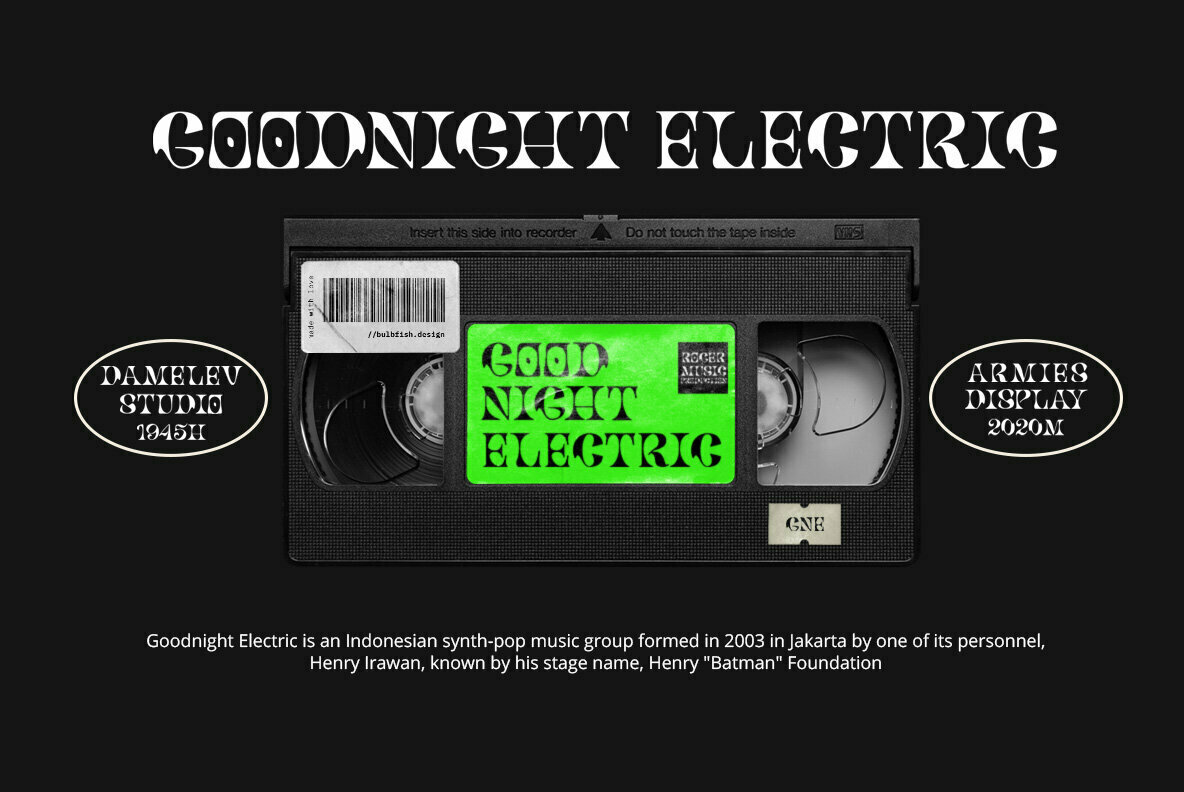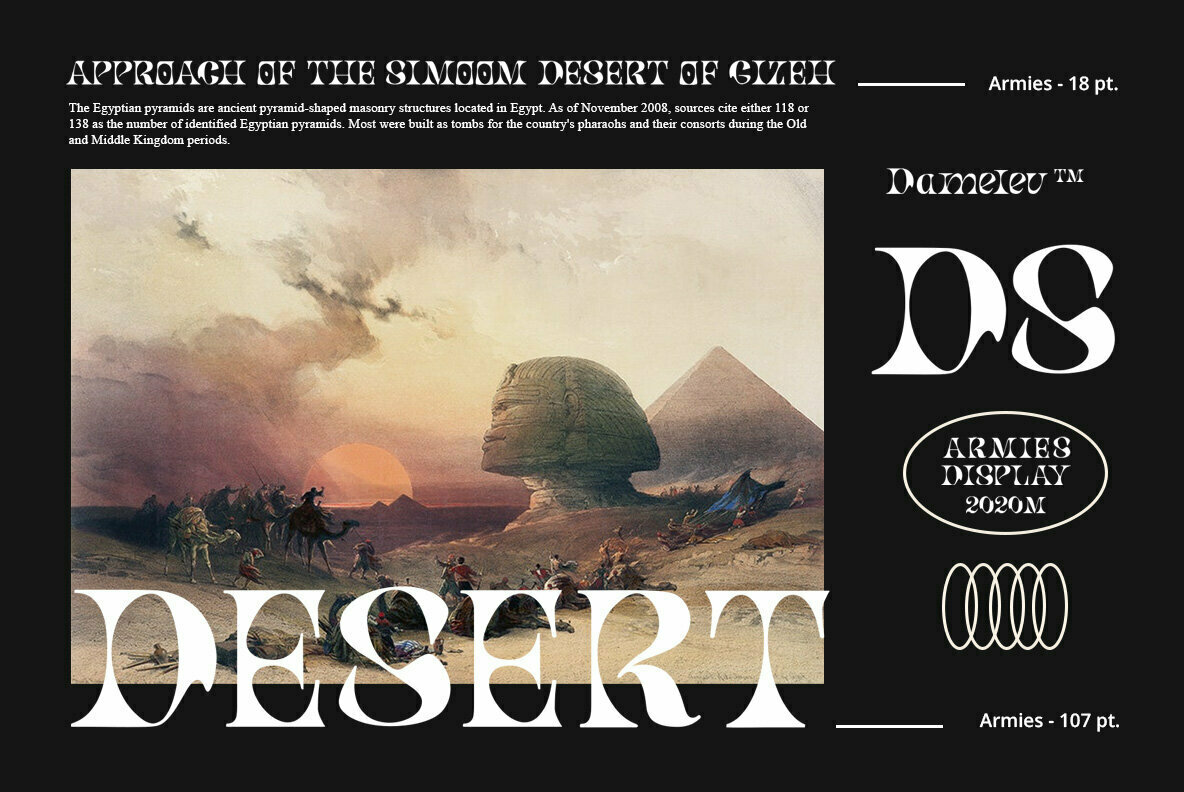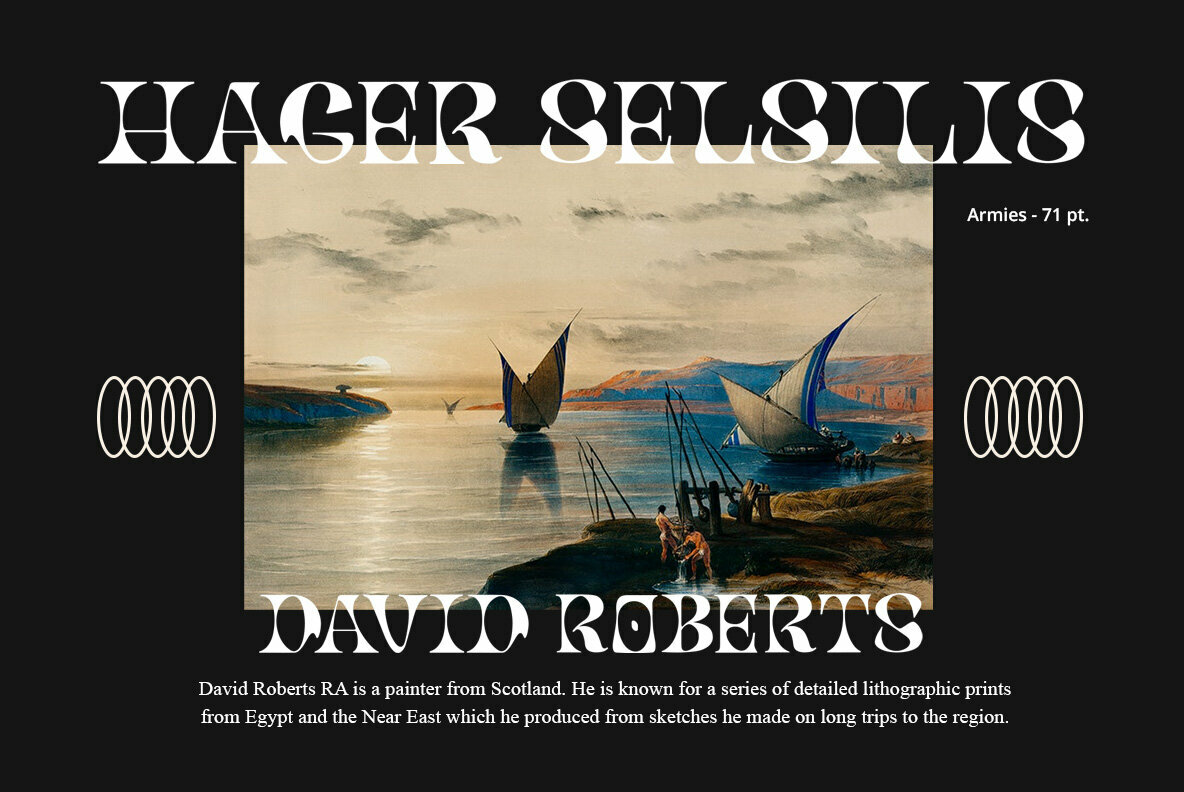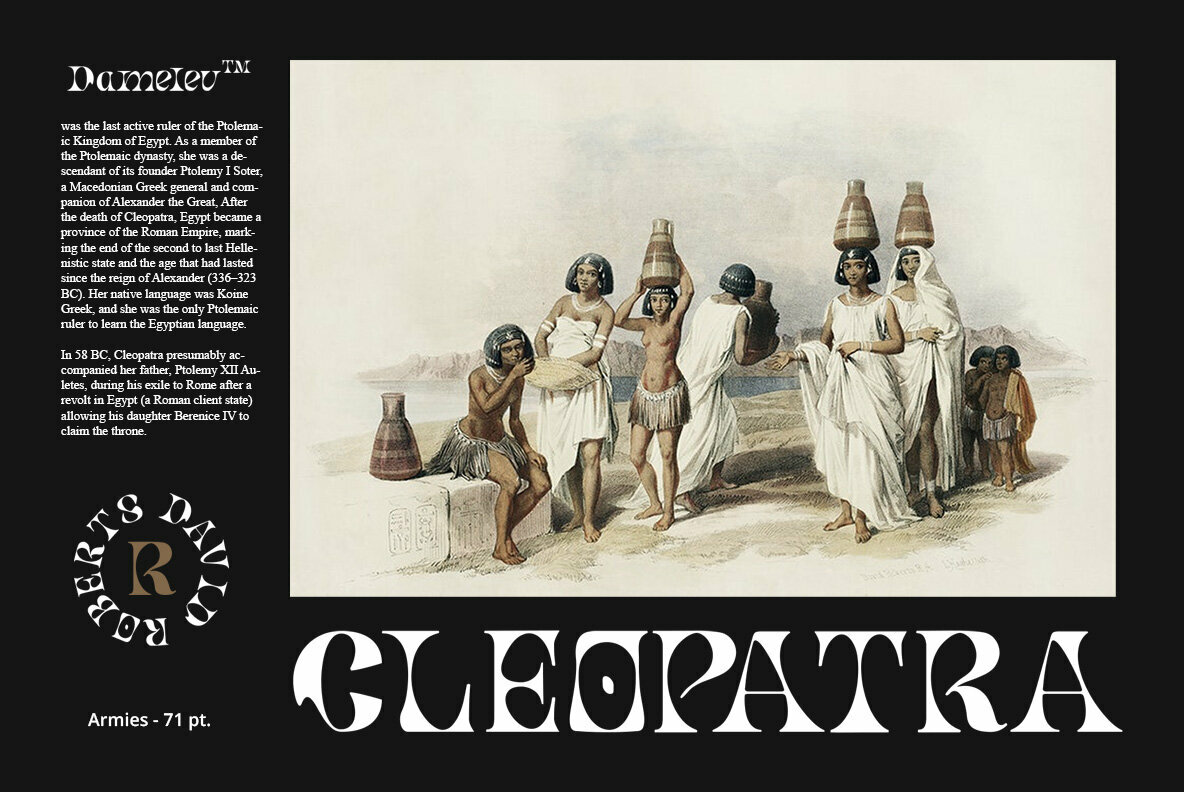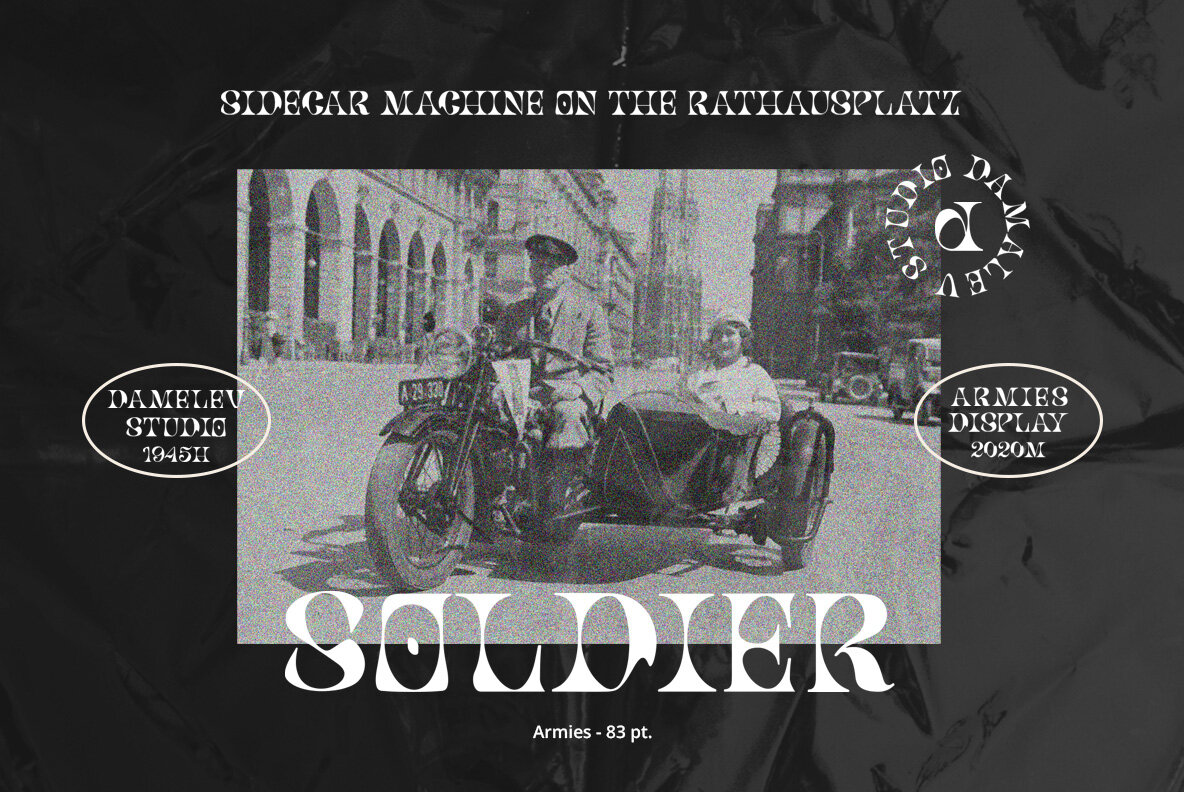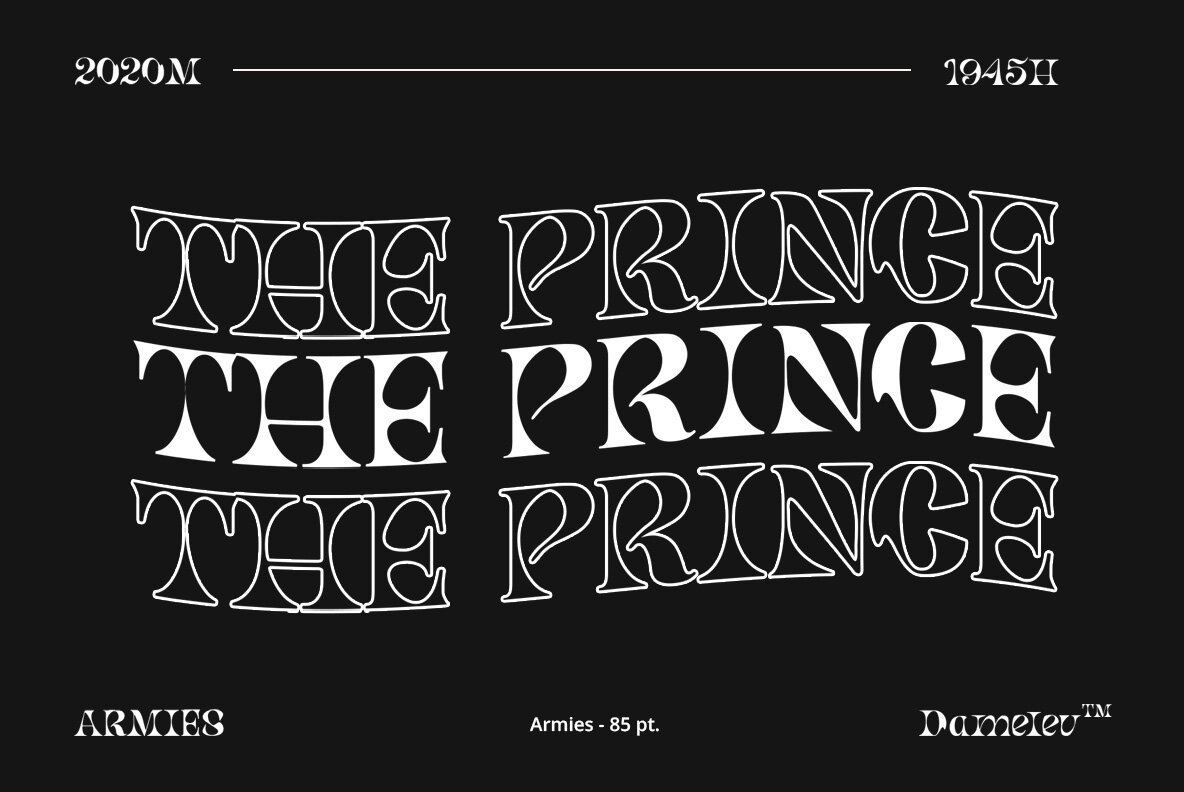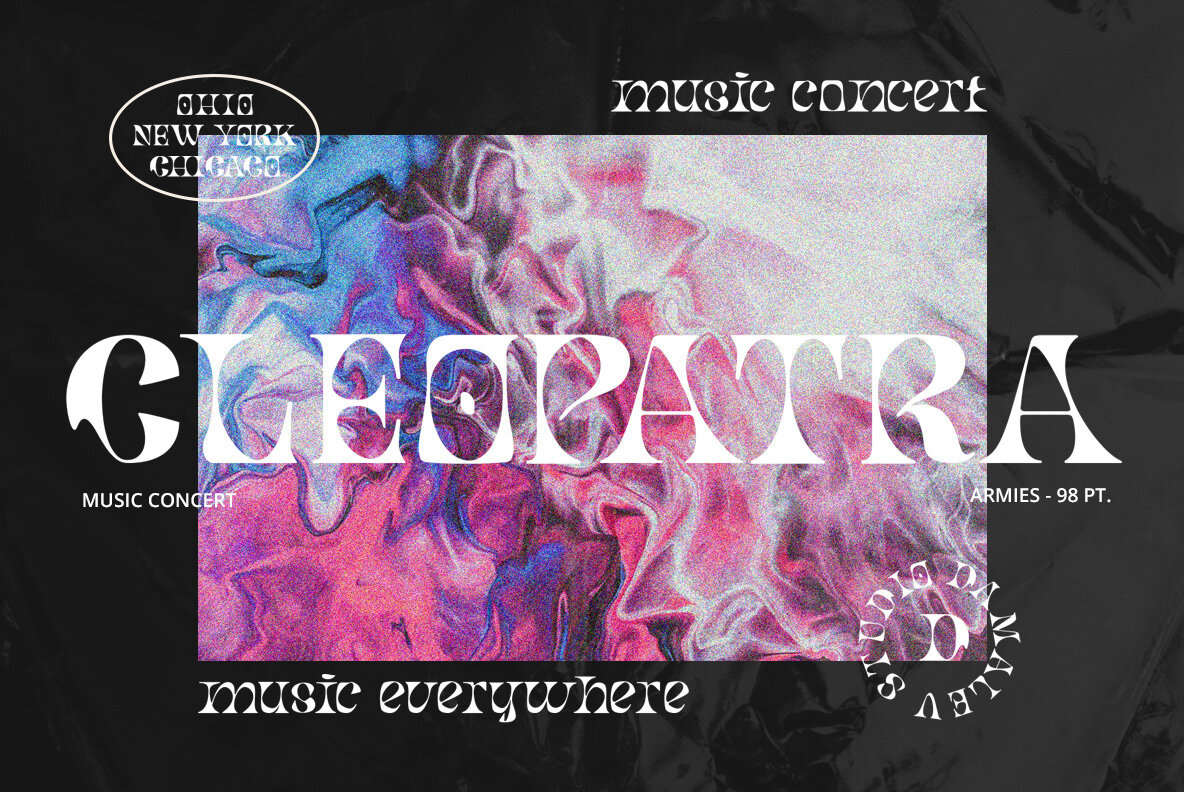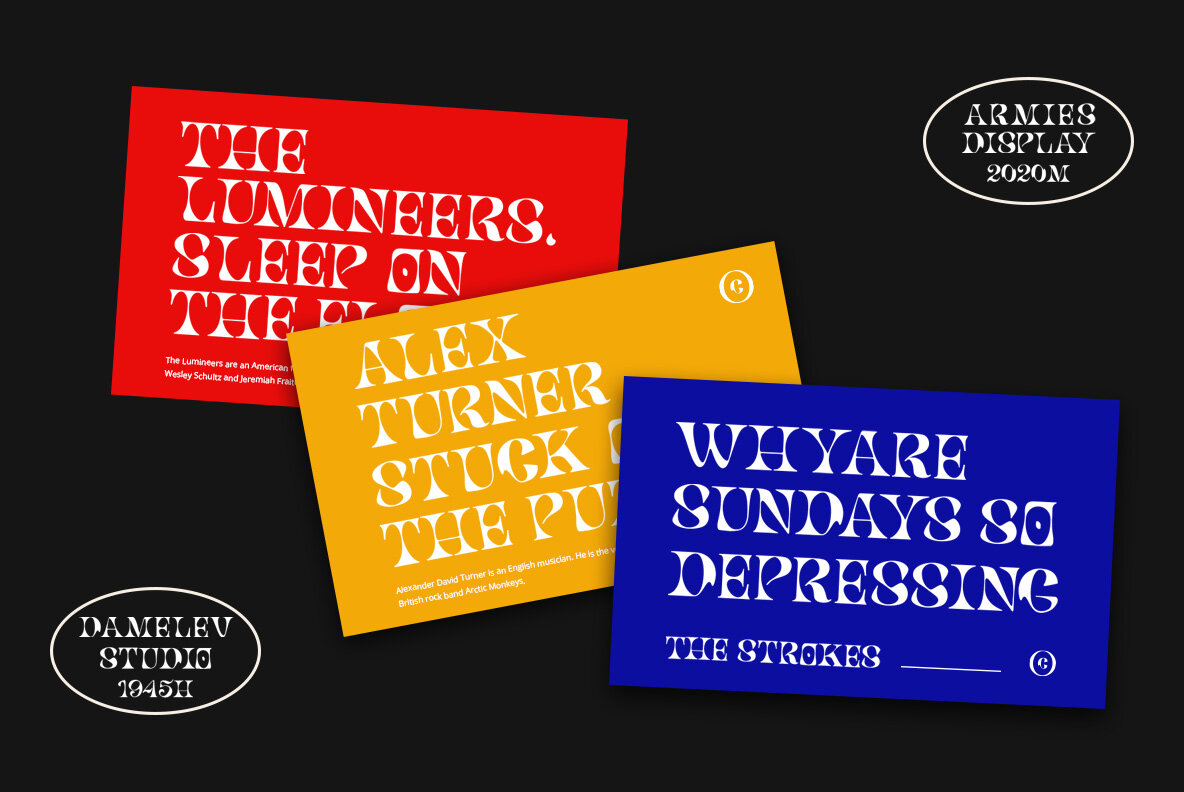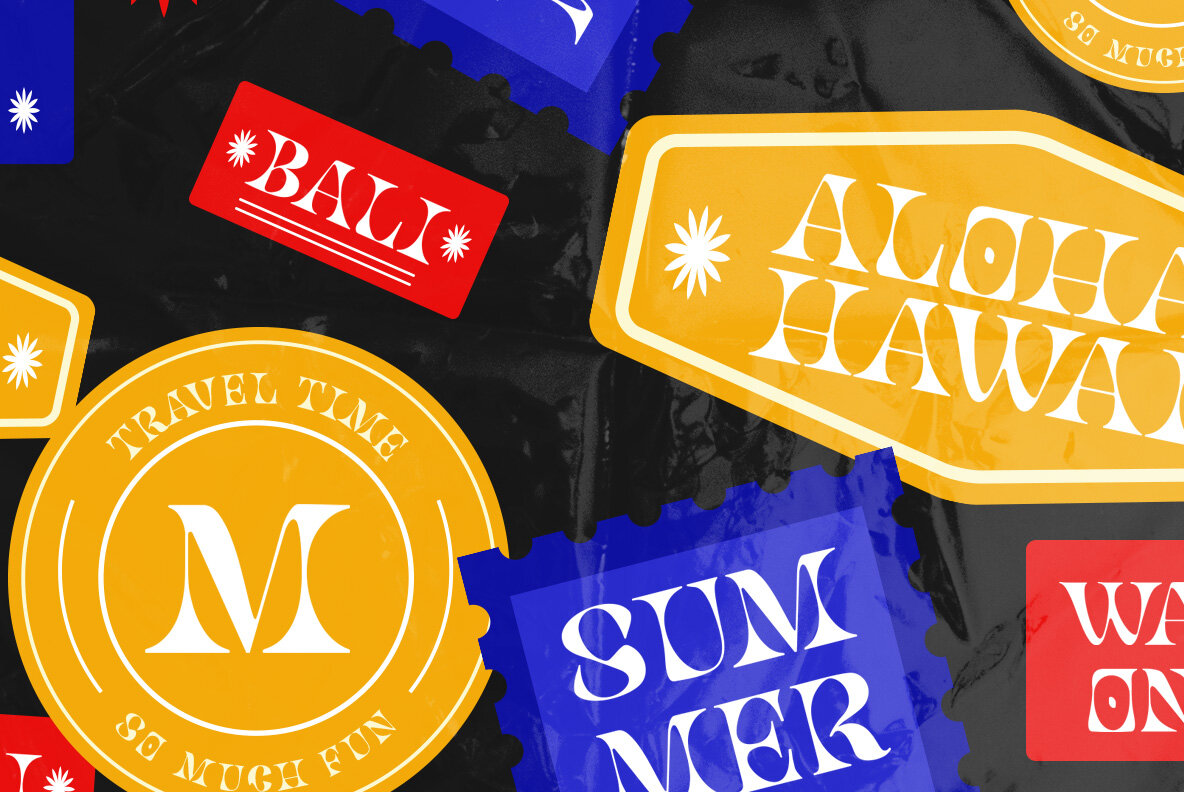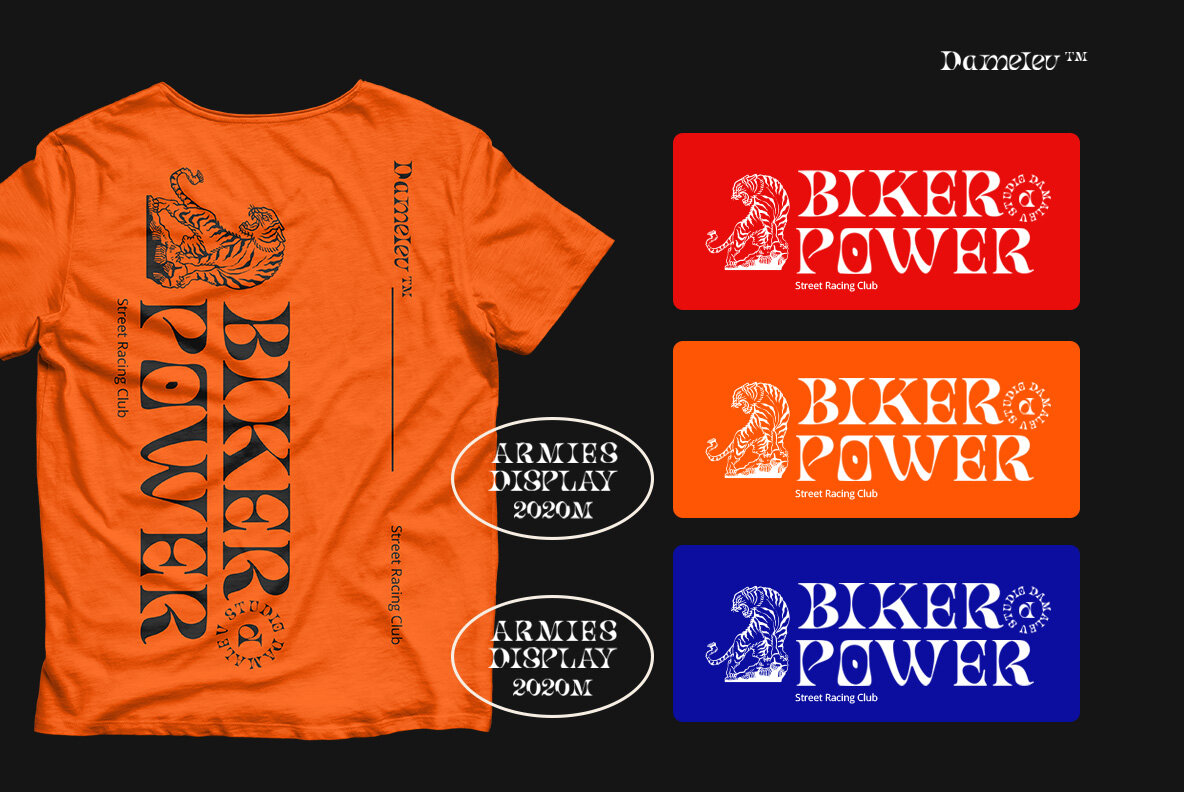
Armies Display
Armies display belongs to the "twisted shape" category because it is so bold or heavy. It is also a high contrast design and very extended or wide. Although it is legible at medium sizes it will shine most when used large where both its restraint and passion can be seen.